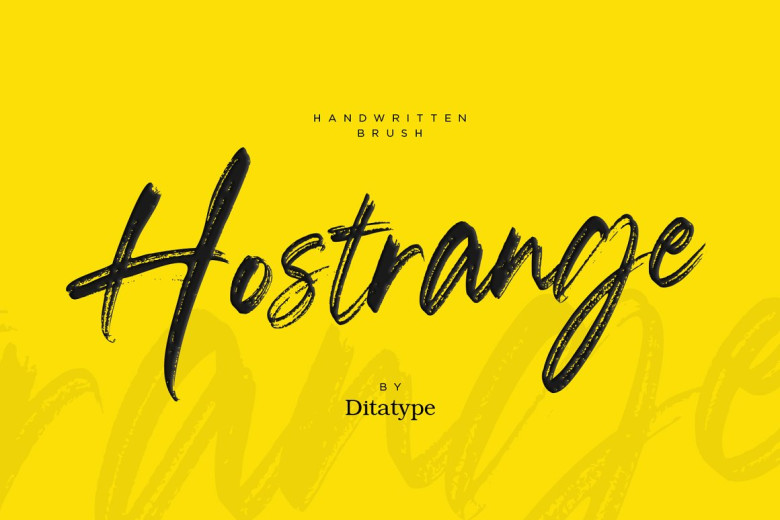
Hostrange Font
Hostrange is an authentic and personalized touch to your designs with their handwritten Brush Font typeface. This typeface captures handcrafted charm with its brush-style letters and variable brush stroke thicknesses; even more special is its unique handwriting that features different length brush strokes for each letter in this alphabetic handwriting font.
It adds movement and visual interest, mimicking the variations found in brush calligraphy, creating an inviting font full of character and life. Brush strokes add an organic, handmade appearance as though created using a real brush.
Hostrange font’s various thicknesses give it a handcrafted aesthetic and feel, and are perfectly balanced between legibility, artistic expression, and legibility. Each letter retains its distinct shape while brush stroke thicknesses give each character its own feel.
Hostrange Brush Script Font